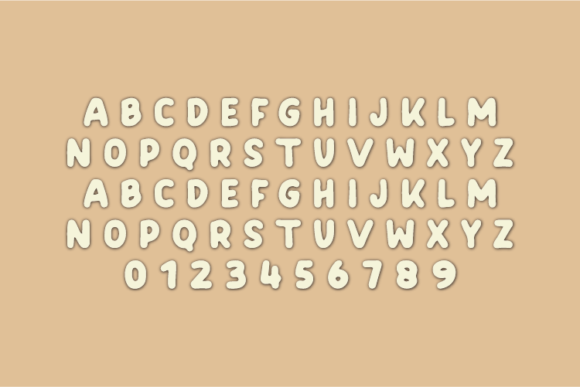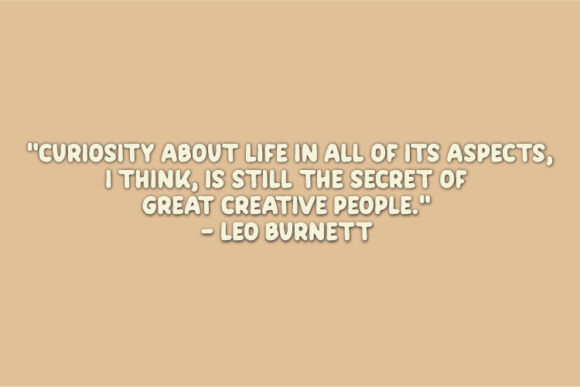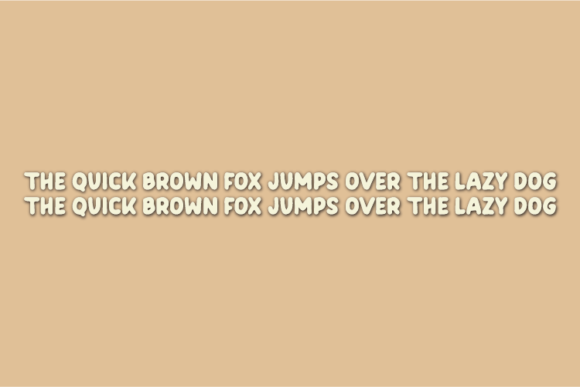
About Peanut Jelly Font
Peanut Jelly is an adaptable and clean handwritten font. Its natural and unique style makes it incredibly fitting to a large pool of designs. The only limit is your imagination!